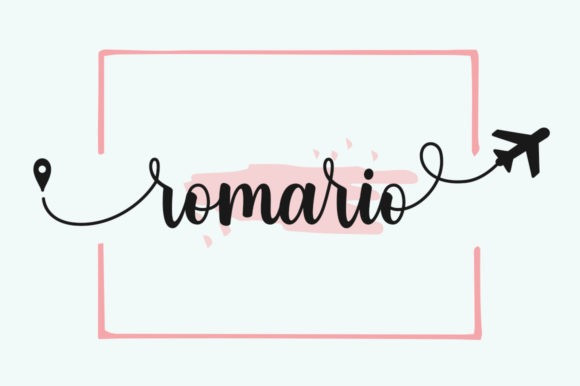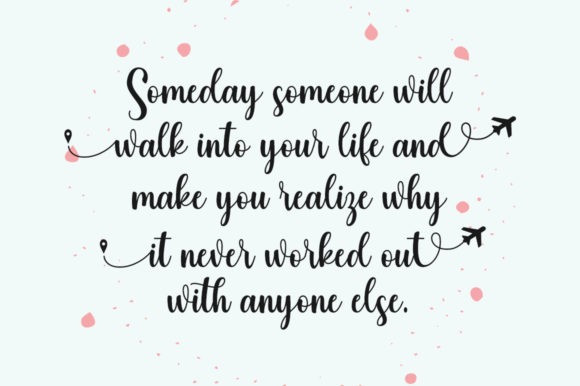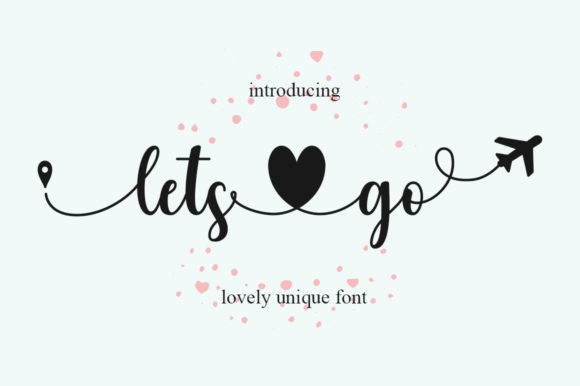
Let’s Go Font
Let’s Go Font is a sweet and friendly font. Its natural and unique style makes it incredibly fitting to a large pool of designs. You can successfully use it for style quotes, wedding cards, magazines, fashion, creative branding, album covers, book covers, movie titles, and so many more.